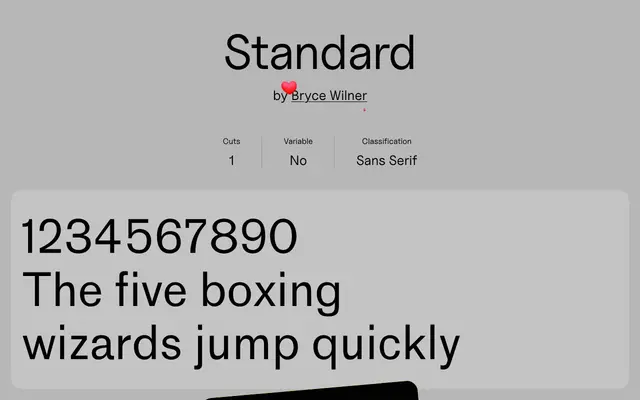
Standard
A single-cut sans-serif by Bryce Wilner, available free under the SIL Open Font License for personal and commercial use.
Standard is a one-weight sans-serif by Bryce Wilner, offered with no variable axis and no italic companion. The SIL Open Font License permits commercial use, modification and redistribution with conditions. The page provides little detail beyond the classification and licence, suggesting a minimal, utility-focused release.
Listed under sans-serif classification on the foundry page; the name and single-cut offering suggest a neutral grotesque style.